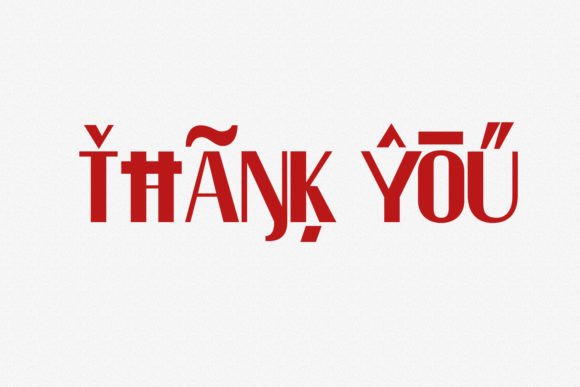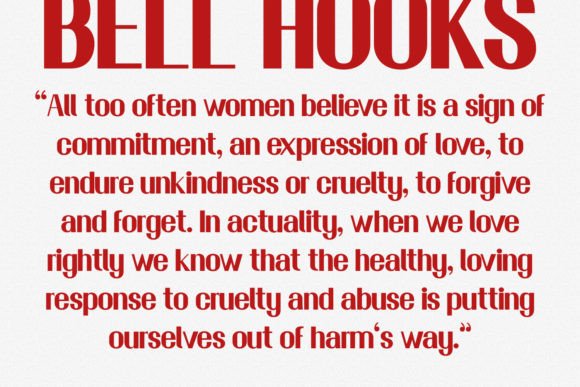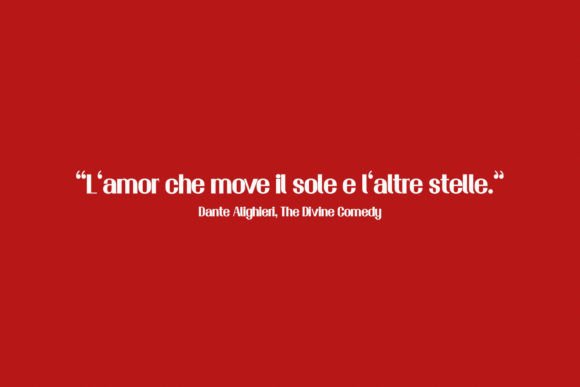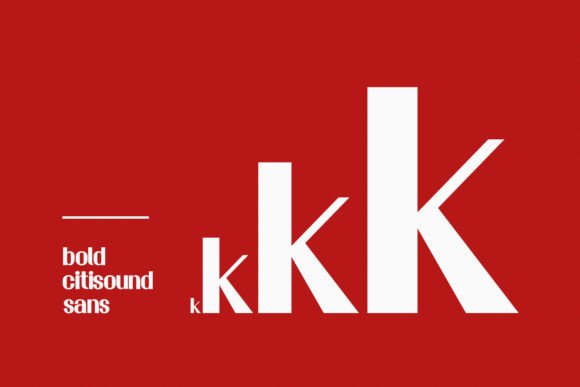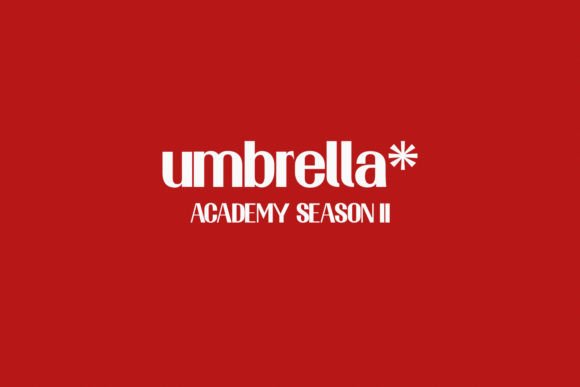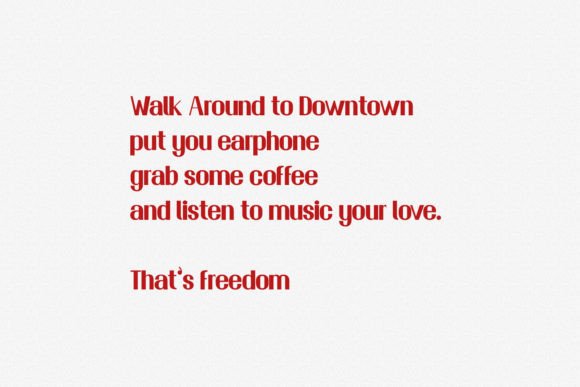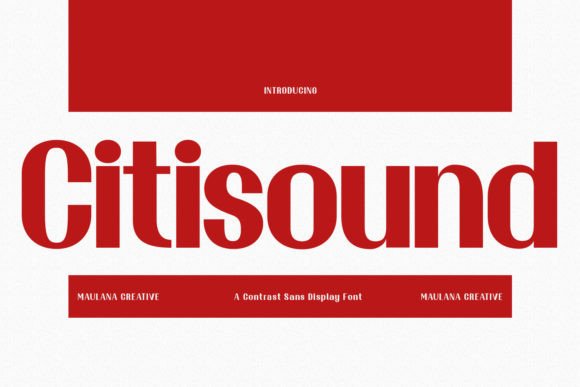
Citisound Font: A Timeless Classic for Modern Designs
In the world of typography, fonts play a crucial role in conveying messages, evoking emotions, and creating lasting impressions. For designers and crafters, finding the perfect font can be a daunting task, especially with the numerous options available. However, if you’re looking for a classic contrast sans serif font that exudes trendiness and versatility, look no further than Citisound Font.
What is Citisound Font?
Citisound Font is a carefully crafted sans serif font that boasts a classic contrast style, making it an excellent addition to any design project. Its unique blend of traditional and modern elements gives it a distinctive look that sets it apart from other fonts in its category. Whether you’re working on a branding project, creating a logo, or designing a website, Citisound Font is an excellent choice.
Key Features of Citisound Font
So, what makes Citisound Font so special? Here are some of its key features:
- Classic Contrast Style: Citisound Font features a classic contrast style that gives it a timeless appeal. Its subtle variations in line width and spacing create a sense of elegance and sophistication.
- Trendiness: Despite its classic roots, Citisound Font has a trendy side that makes it perfect for modern designs. Its clean lines, simple shapes, and balanced proportions give it a fresh and contemporary feel.
- Versatility: Citisound Font is incredibly versatile, making it suitable for a wide range of applications, from branding and advertising to packaging and digital media.
- Legibility: One of the standout features of Citisound Font is its exceptional legibility. Its clear and concise letterforms make it easy to read, even at small sizes.
Use Cases for Citisound Font
Citisound Font is an incredibly versatile font that can be used in a variety of contexts. Here are some examples of how you can use it:
- Branding and Logo Design: Citisound Font is an excellent choice for branding and logo design projects. Its classic contrast style and trendy vibe make it perfect for creating memorable and impactful logos.
- Advertising and Marketing: Whether you’re creating a print ad, a digital banner, or a social media post, Citisound Font is an excellent choice. Its legibility and versatility make it perfect for conveying messages and grabbing attention.
- Packaging Design: Citisound Font is also well-suited for packaging design projects. Its clean lines and simple shapes make it easy to read and recognize, even on small packaging labels.
- Digital Media: Finally, Citisound Font is perfect for digital media projects, such as website design, mobile apps, and video productions. Its legibility and versatility make it an excellent choice for creating engaging and user-friendly digital experiences.
Tips for Using Citisound Font
To get the most out of Citisound Font, here are some tips to keep in mind:
- Experiment with Font Sizes: Citisound Font is legible at a wide range of font sizes, so don’t be afraid to experiment with different sizes to find the one that works best for your project.
- Pair it with Other Fonts: Citisound Font pairs well with a variety of other fonts, so feel free to experiment with different font combinations to create a unique look.
- Use it Consistently: To create a cohesive look, use Citisound Font consistently throughout your design project.
In conclusion, Citisound Font is a classic contrast sans serif font that offers a unique blend of trendiness and versatility. Its exceptional legibility, clean lines, and simple shapes make it perfect for a wide range of applications, from branding and advertising to packaging and digital media. Whether you’re a designer or crafter, Citisound Font is an excellent addition to your typography toolkit.